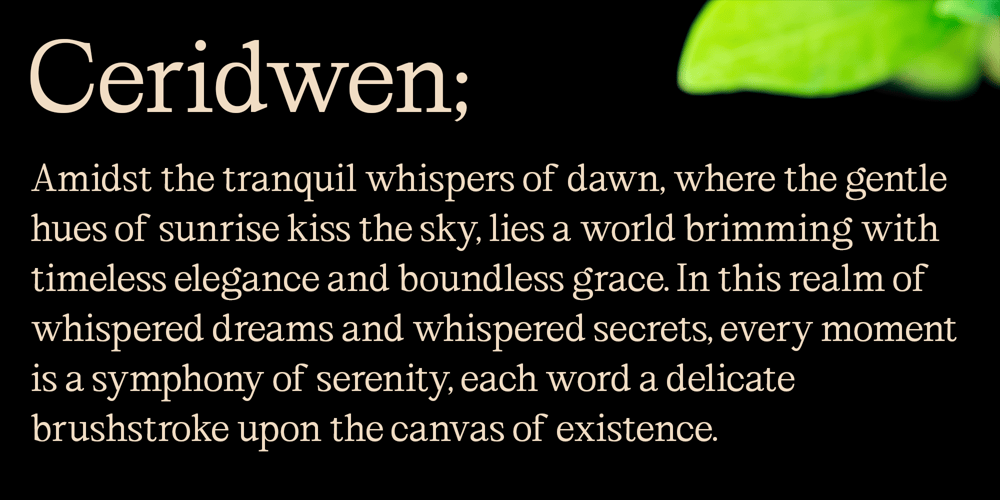
Ceridwen Font Family was designed by Syifa Fauzia Zazuli and published by Magnolitype. Ceridwen contains 1 styles and family package options. Introducing Ceridwen, a timeless serif font exuding an air of refined elegance and sophistication. With its graceful curves and delicate serifs, Ceridwen effortlessly captures the essence of classical beauty, transporting readers to an era of timeless charm and poise.Each stroke of Ceridwen’s letterforms is meticulously crafted to evoke a sense of balance and harmony, while its generous x-height ensures optimal legibility and readability across various mediums. Whether adorning the pages of a vintage novel or gracing the signage of a prestigious establishment, Ceridwen lends an aura of timeless grace to any project it adorns.